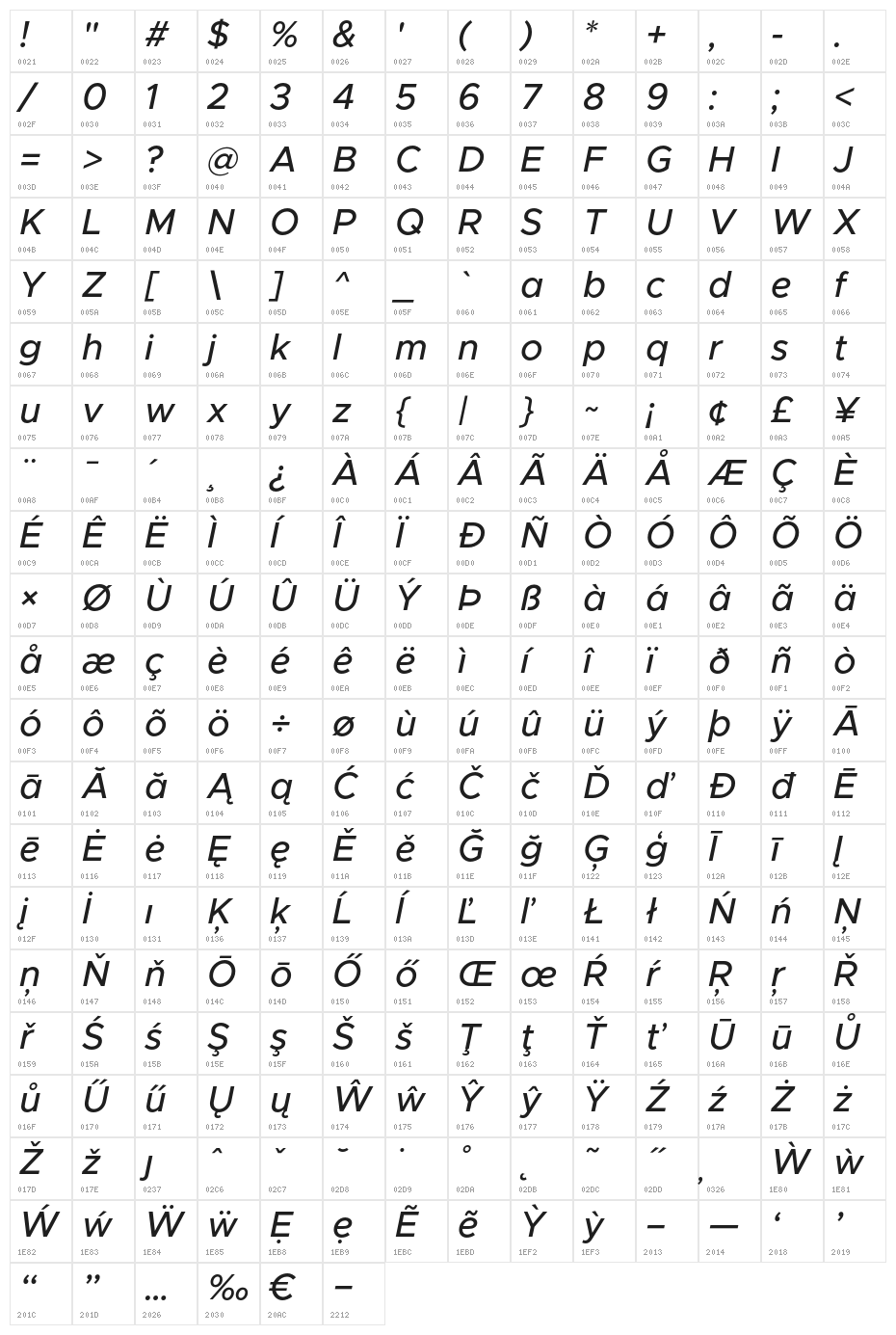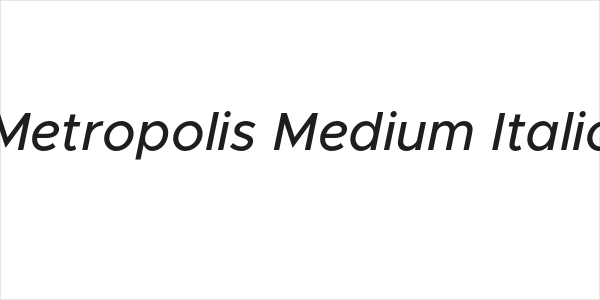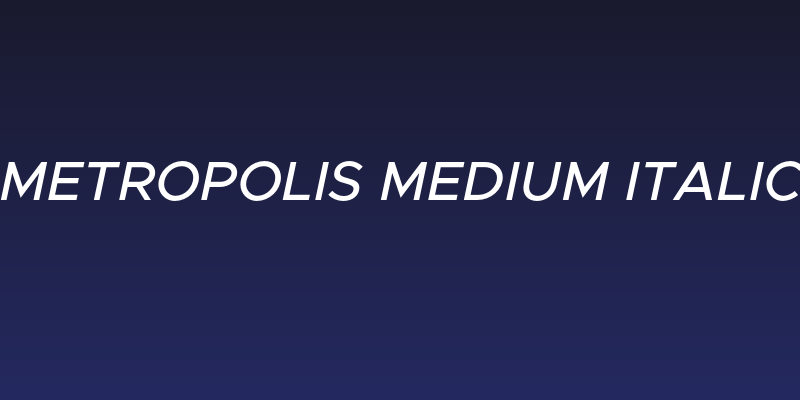
Metropolis Medium Italic Font
Metropolis Medium Italic Description
This typeface exhibits a sleek and modern aesthetic with a clean, geometric structure. The italic style adds a dynamic and forward-leaning appearance, enhancing its contemporary feel. The characters are well-proportioned, with a consistent stroke width that maintains readability across various sizes. The uppercase letters are bold and assertive, while the lowercase letters offer a softer, more approachable look. The numerals are clear and distinct, making them suitable for both text and numerical data. Special characters are well-integrated, ensuring versatility in different contexts.